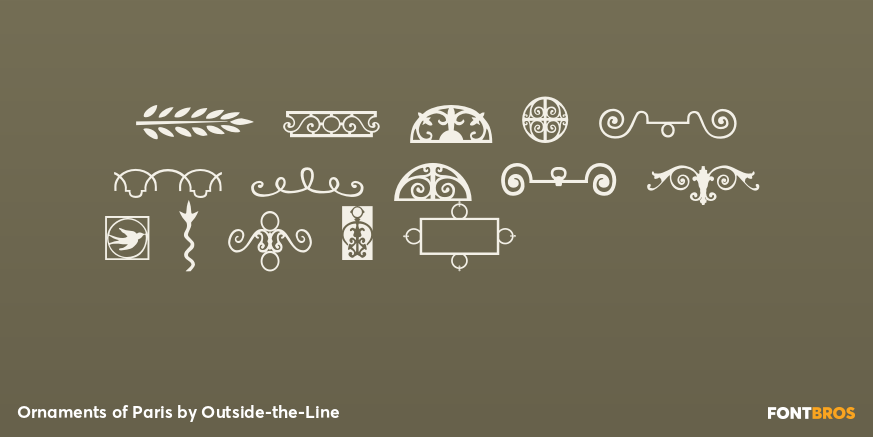
Ornaments of Paris
Font Family by Outside-the-Line
The Ornaments of Paris were inspired by a recent trip to Paris. Each tiny Paris icon is distilled from a church, a fence, a doorway, a railing, the Louvre, graphics in a store window, a feeling, a rainy day, a glass of wine.